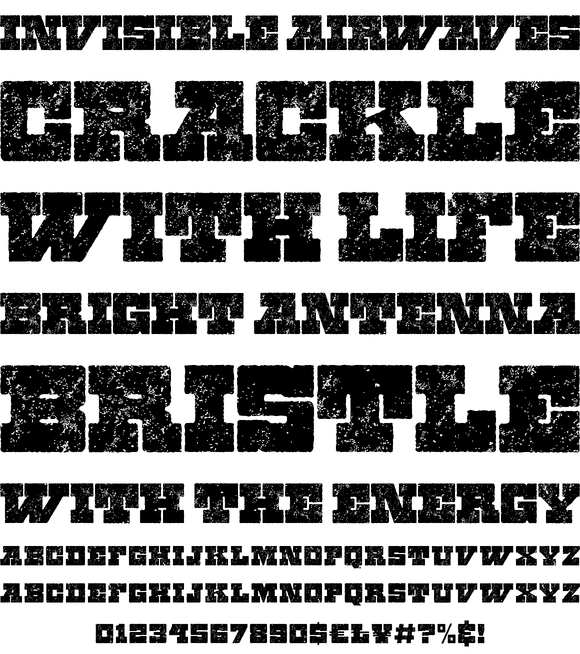
Zennat Pro Font
This font is inspired by the compact, high-impact design aesthetic of the 1990s in Chile, which was defined by the use of very heavy fonts to create eye-catching graphic pieces. With this idea in mind, Zennat Pro was born, a “semi-slab serif” that takes advantage of OpenType features which rotate in alternate characters to best fit the design.
Zennat pro comes in 10 weights, and is ideal for magazine design, motion graphics, trademarks, logos, posters, etc.